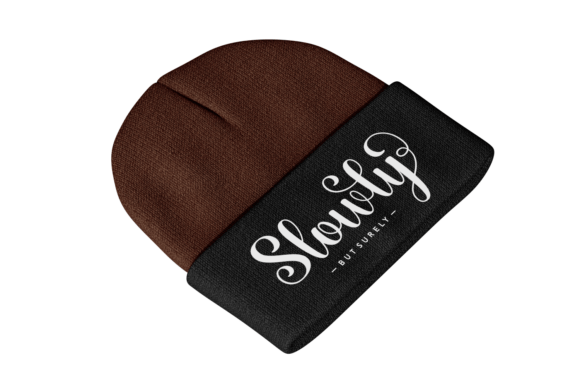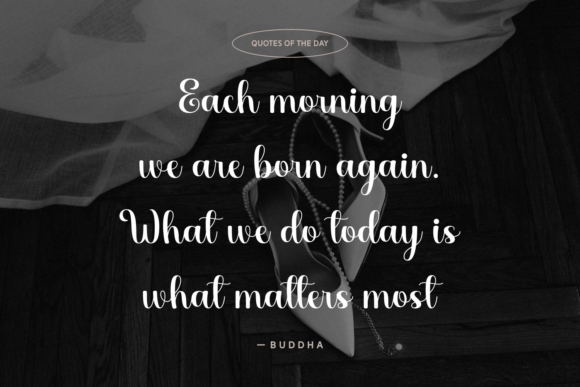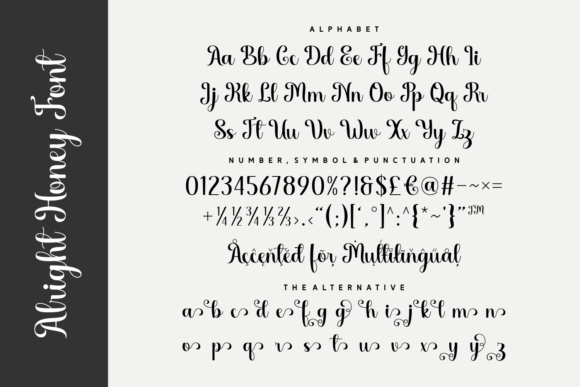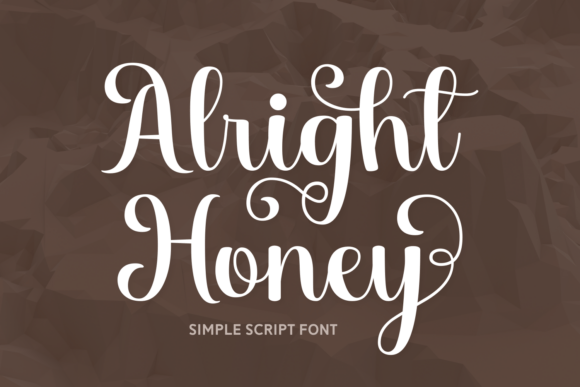
Introducing Alright Honey Font: The Perfect Blend of Elegance and Modern Charm
In the world of typography, few fonts manage to strike the perfect balance between simplicity and sophistication. Alright Honey, a sweet and elegant script font, is one such typeface that has captured the hearts of designers and crafters alike. With its smooth curves, playful swashes, and clean baseline, Alright Honey brings a touch of modern charm to traditional handwritten elegance.
The Characteristics of Alright Honey Font
Alright Honey is a script font that exudes warmth and class, making it an ideal choice for a variety of design projects. Its key features include:
- Smooth Curves: The font boasts fluid, smooth curves that give it a natural and effortless look, perfect for creating a sense of continuity and flow in your designs.
- Playful Swashes: Adding a touch of whimsy and flair, the swashes in Alright Honey can be used to enhance the aesthetic appeal of your text, making it stand out in any design.
- Clean Baseline: The clean and stable baseline ensures that the text remains clear and readable, even when using the font for longer passages or body text.
Uses of Alright Honey Font
Alright Honey’s versatility makes it suitable for a wide range of design applications. Here are some of the best uses for this beautiful font:
- Invitations: Whether it’s a wedding invitation, a birthday party invite, or any other special occasion, Alright Honey adds a touch of elegance and personal warmth.
- Logos: For businesses in the lifestyle, fashion, and beauty sectors, Alright Honey can help create a logo that is both sophisticated and approachable.
- Quotes and Greeting Cards: The font’s emotional warmth makes it perfect for quotes, greeting cards, and any project that requires conveying heartfelt messages.
- Product Packaging: For brands looking to add a personal touch to their product packaging, Alright Honey offers a stylish and modern solution that stands out on store shelves.
Why Choose Alright Honey for Your Designs?
There are several reasons why Alright Honey has become a go-to font for designers and crafters:
- Unique yet Readable: Alright Honey manages to be unique and distinctive without compromising on readability, making it perfect for both headings and body text.
- Emotional Connection: The warmth and softness of the font help create an emotional connection with the audience, which is invaluable for brands and personal projects alike.
- Versatility: It can be used in a variety of contexts, from digital designs to print materials, offering great flexibility for designers.
- Elegance with a Modern Twist: Alright Honey brings a fresh and modern take to traditional script typography, making it relevant for contemporary design needs.
Tips for Using Alright Honey Effectively
To get the most out of Alright Honey, consider the following tips:
- Pair with Complementary Fonts: For maximum impact, pair Alright Honey with fonts that complement its elegance and playfulness, such as clean sans-serifs or classic serifs.
- Adjust Swashes: Customize the swashes to fit the tone of your project. For example, more swashes can add a playful touch, while minimizing them can keep the design elegant.
- Consider Color Choices: The font looks stunning in pastel shades, soft neutrals, and even rich jewel tones. Choose colors that enhance the warmth and sophistication of Alright Honey.
Alright Honey font is a beautiful addition to any designer’s toolkit. Its blend of elegance, modernity, and warmth makes it perfect for a variety of projects, from wedding invitations to product packaging. With its smooth curves, playful swashes, and clean baseline, Alright Honey delivers a confident yet soft touch that can elevate your designs to new heights. Whether you’re a professional designer or a crafting enthusiast, Alright Honey is sure to inspire your creativity and add a touch of class to your work.
So, if you’re looking for a font that combines the charm of handwritten elegance with a modern twist, look no further than Alright Honey. Its versatility, emotional warmth, and stylish appeal make it an excellent choice for anyone aiming to create beautiful and impactful designs.